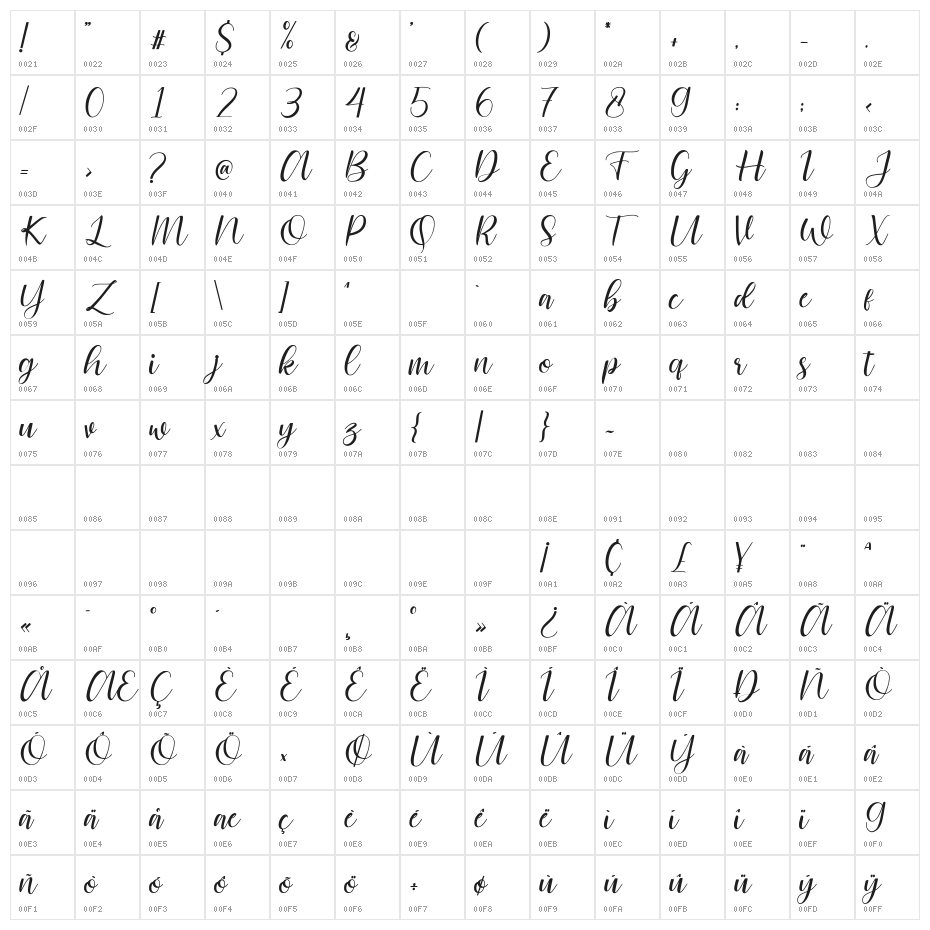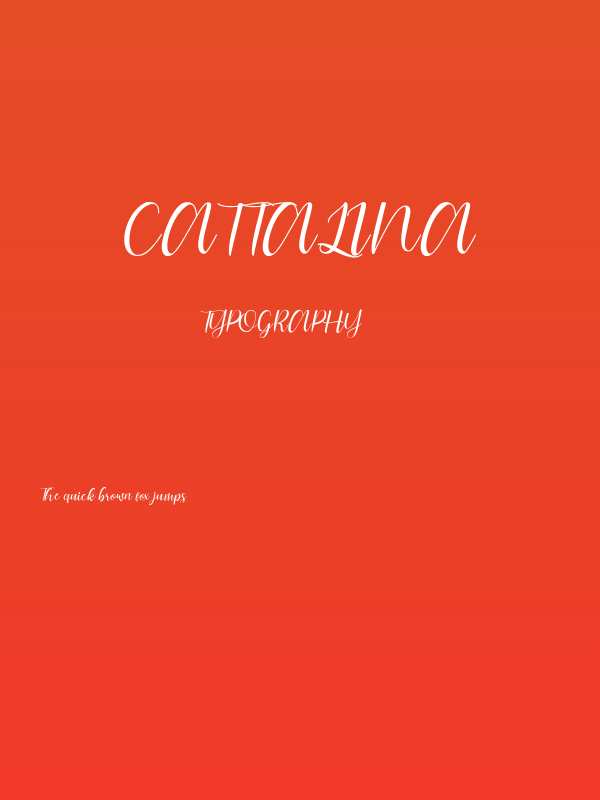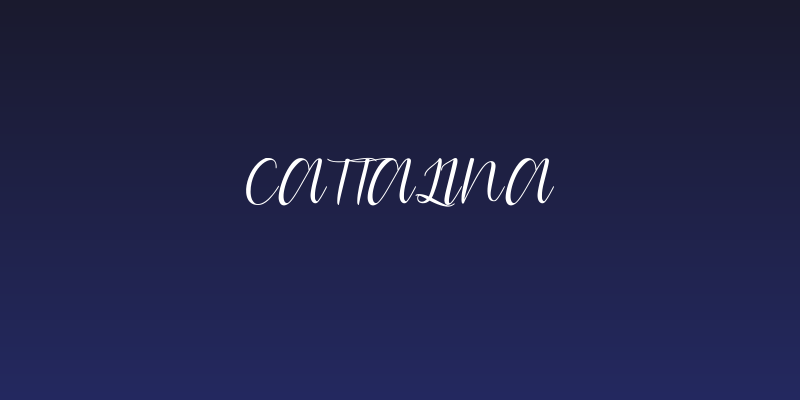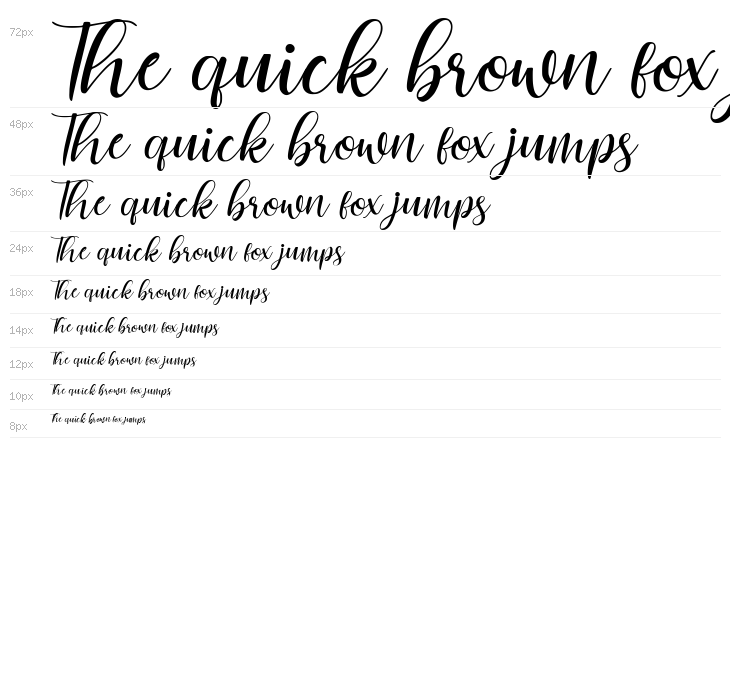
Cattalina Font
Cattalina Description
This elegant script font features flowing, cursive letterforms with a modern touch. The uppercase letters are characterized by their sweeping, dramatic flourishes, while the lowercase letters maintain a more consistent, rounded appearance. The numerals are stylish and complement the overall aesthetic, making them suitable for a variety of decorative purposes. The special characters are well-integrated, maintaining the font's cohesive look. This font's design is perfect for adding a touch of sophistication and elegance to any project.
| Proposed Projects | Ideal for wedding invitations, branding, greeting cards, and elegant signage. |